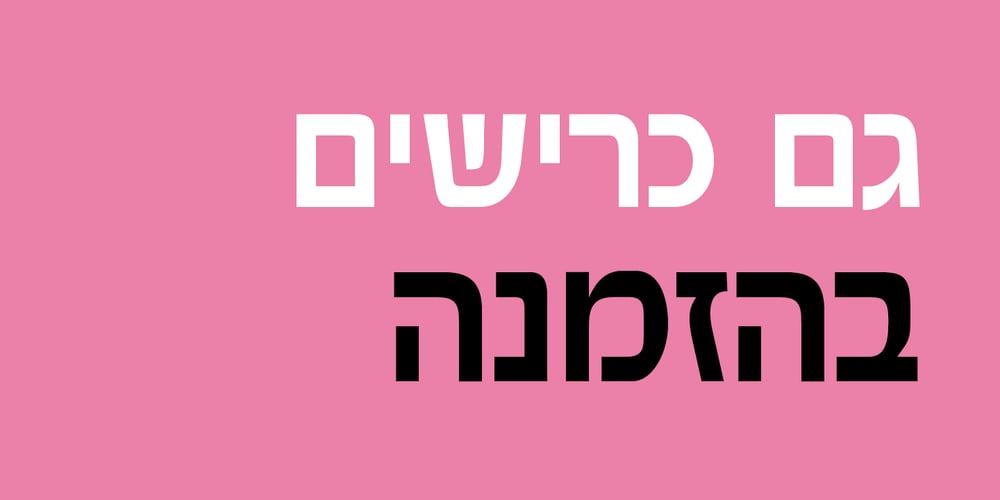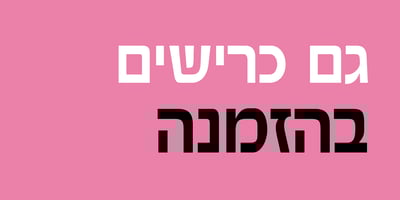
Sefel Mashke MF
Sefel Mashke MF font
Sefel Mashke MF Font Family was designed by Eliyahu Fried and published by Masterfont. Sefel Mashke MF contains 1 styles and family package options. Super legible font with high legibility even at small sizes.